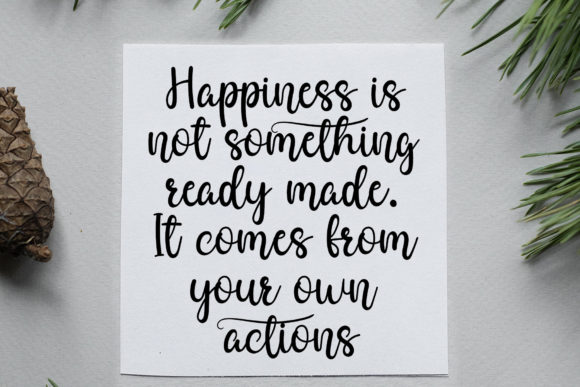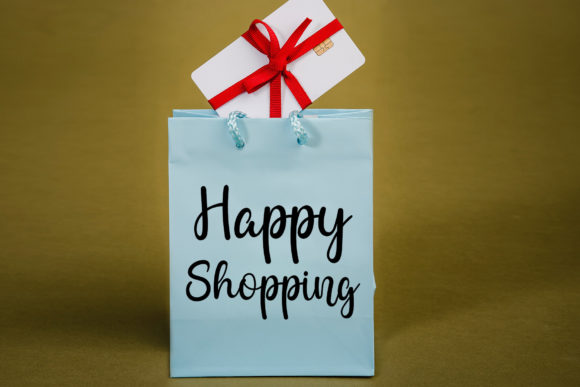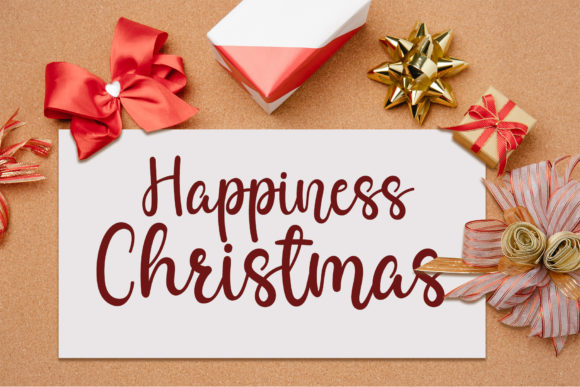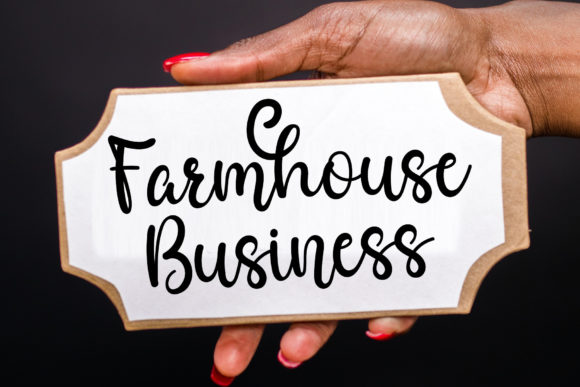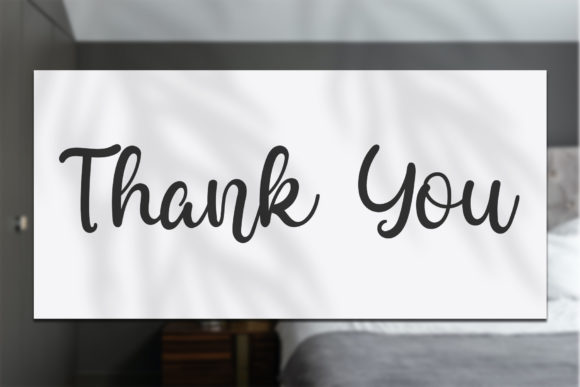
Introduction to Mandala Creator Font
Mandala Creator is a beautiful and light handwritten font, featuring a delicate feel and a stunning impact.
It will add a luxury spark to any design project that you wish to create .
Mandala Creator Font offers exceptional quality and versatility, making it a valuable addition to your design toolkit. Whether you’re creating for personal projects or commercial use, Mandala Creator Font delivers professional results.